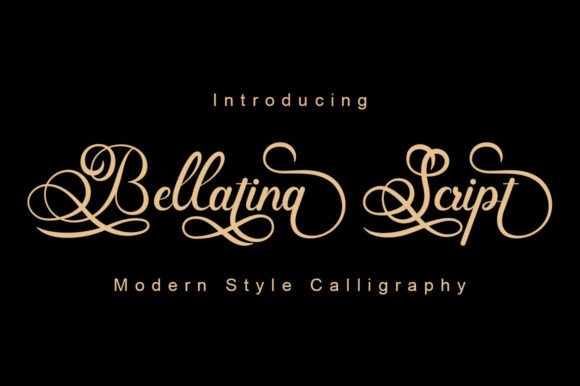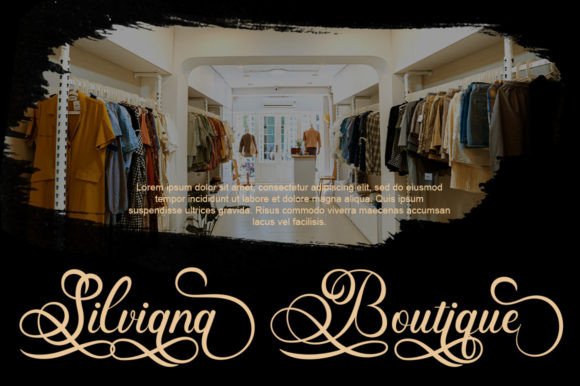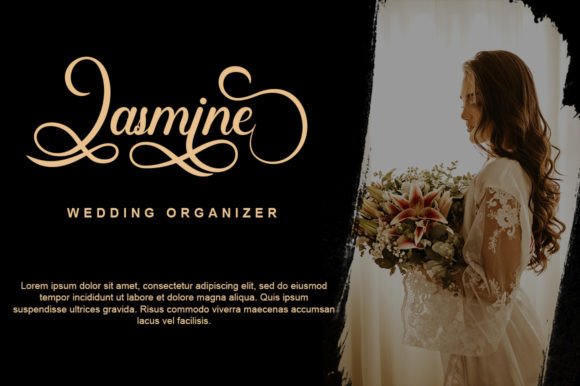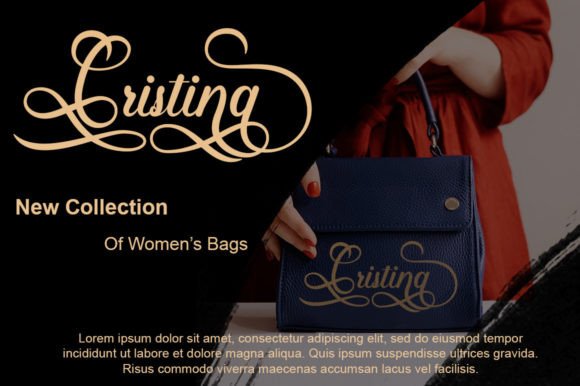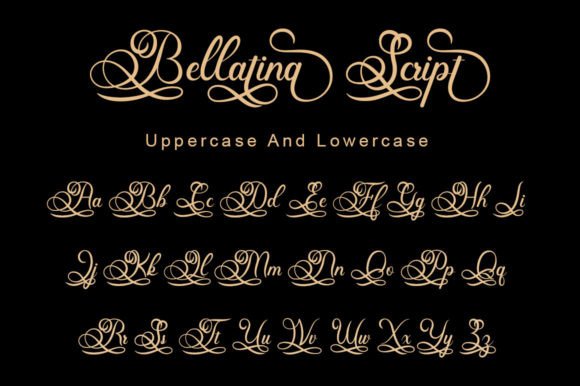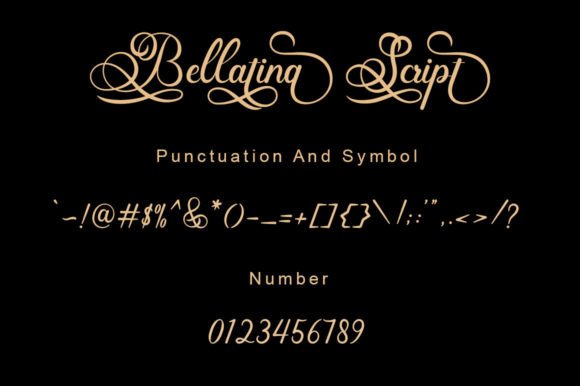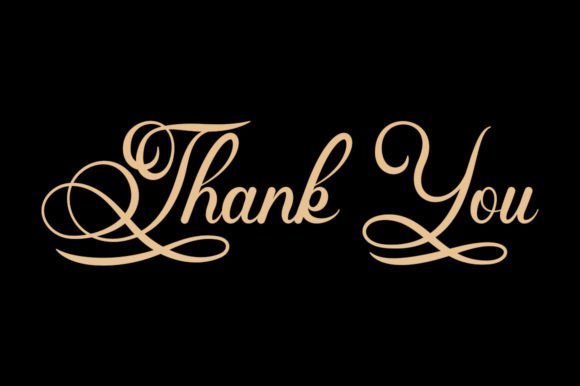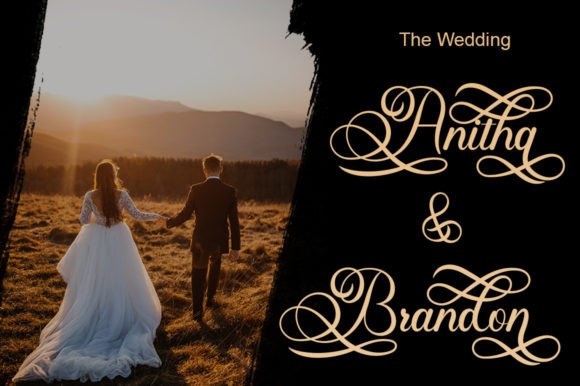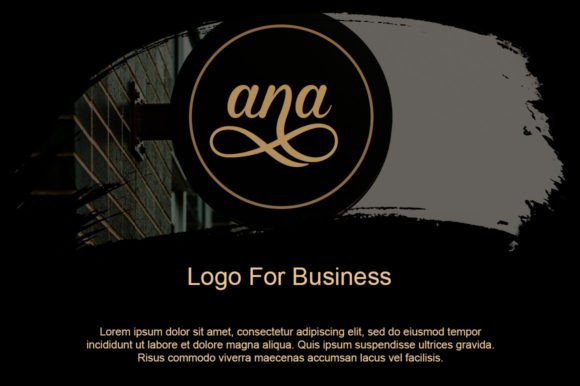
Bellatina Script Font
About Bellatina Script Font
“Bellatina Script” is a luxurious and romantic script font that features fine strokes in every letter, adding an elegant and refined touch to your designs. This font is well-suited for a variety of applications, particularly those that require a handwritten, romantic aesthetic.
The font’s appeal lies in its ability to convey a sense of luxury and romance. It can make your text and designs look stunning and sophisticated. “Bellatina Script” is particularly well-suited for projects such as wedding invitations, thank-you cards, quotes, greeting cards, logos, and business cards, where a handwritten touch can add a personal and intimate feel.
One of the standout features of “Bellatina Script” is its versatility. It can enhance the beauty of various design elements and can be used for both formal and informal occasions. Its fine strokes and elegant curves make it a perfect choice for projects that aim to evoke a sense of class and romance.
When you incorporate “Bellatina Script” into your designs, you have the opportunity to infuse a touch of luxury and elegance into your work. This font can help create a lasting impression and elevate the overall aesthetic of your projects.
In summary, “Bellatina Script” is a luxurious and romantic script font with fine strokes that add a touch of elegance to your designs. Its versatility makes it suitable for a wide range of design applications, especially those that require a handwritten, romantic feel. You can confidently use “Bellatina Script” to make your designs look stunning and sophisticated.